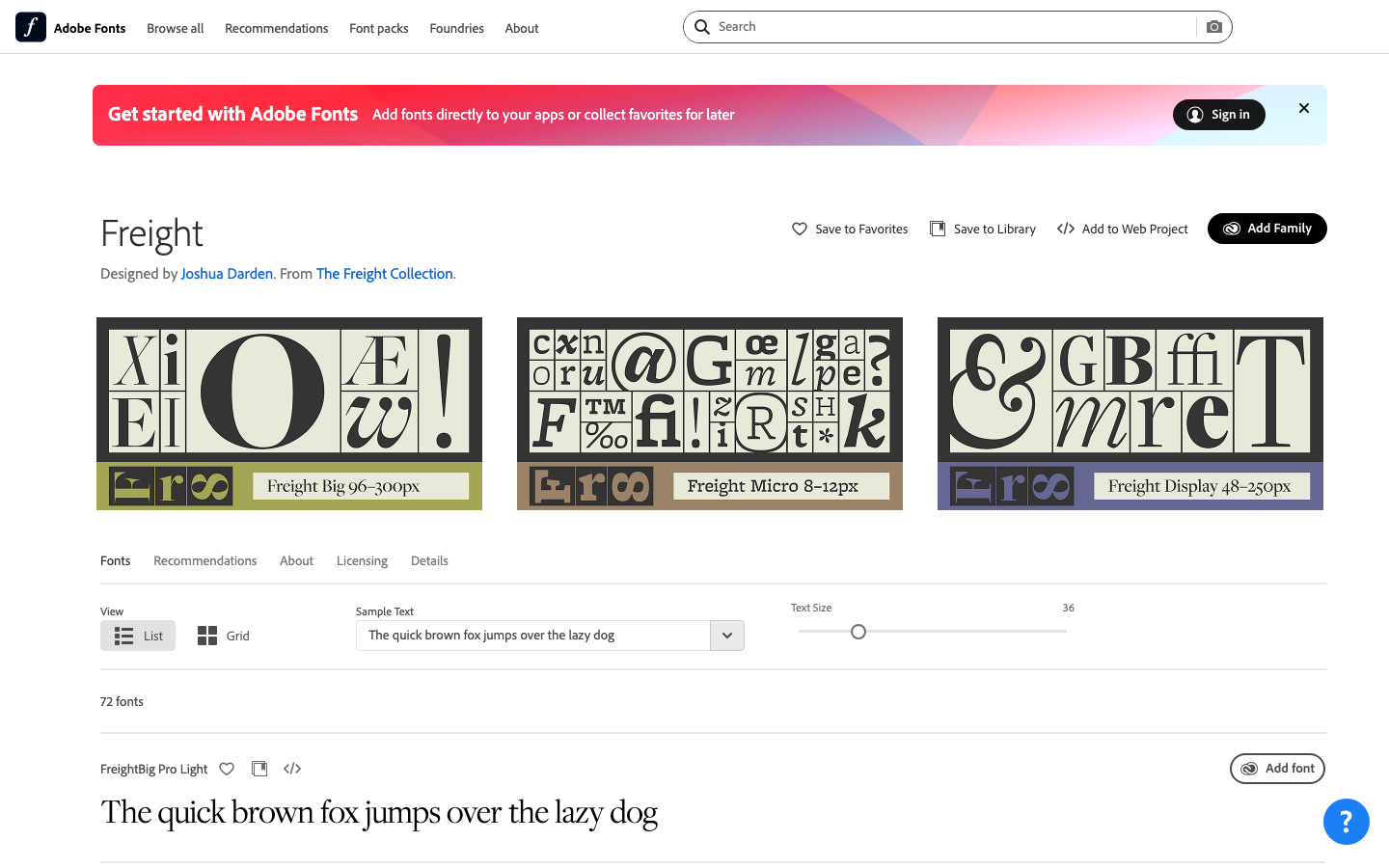
Freight Display vs Reckless
Freight Display and Reckless are both serif typefaces sharing a display foundation. Where Freight Display leans elegant, Reckless brings bold. Compare which suits your Display project.
Freight Display
High Contrast
Elegant
EditorialDisplay
Reckless
High Contrast
Bold
EditorialDisplay
| Feature | Freight Display | Reckless |
Recommended: Freight Display
- elegant design character
- Suited for Luxury
Consider: Reckless
- bold design character
- Suited for Fashion